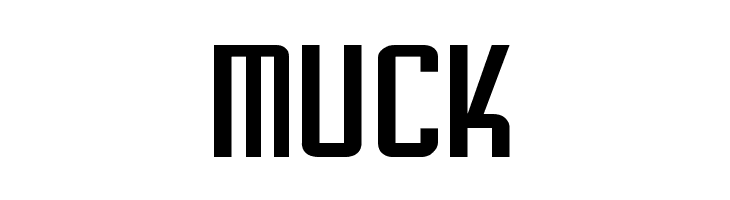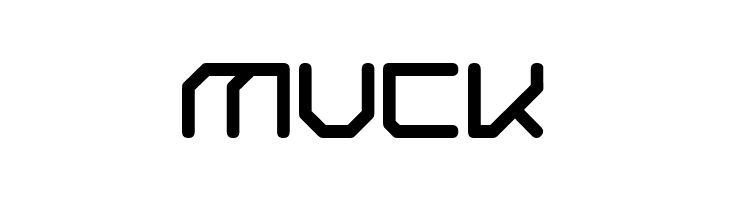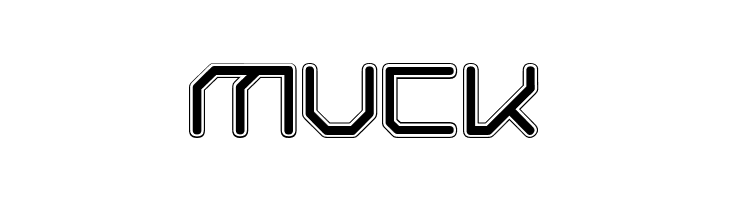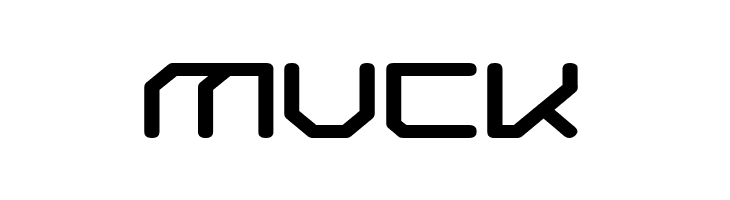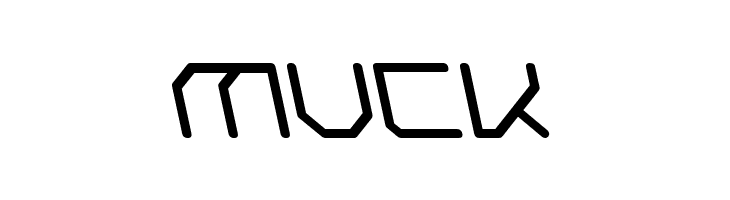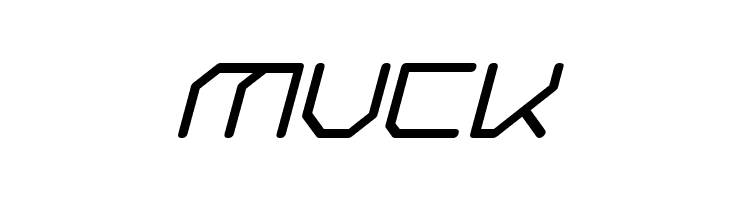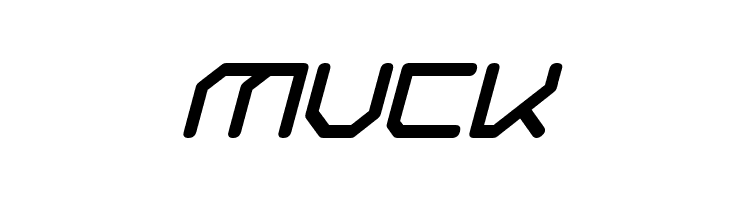
FranciscoLucas Briosa Font
- Font: FranciscoLucas Briosa
A futuristic, geometric font with bold, rounded edges and consistent stroke widths.
A futuristic, geometric font with bold, angular strokes.
A futuristic, geometric font with bold outlines and a modern aesthetic.
A futuristic, geometric font with bold, expanded characters and rounded edges.
A futuristic, geometric font with angular lines and consistent thickness.
A futuristic, geometric italic font with clean, angular lines.
A bold, italicized font with a futuristic and angular design.